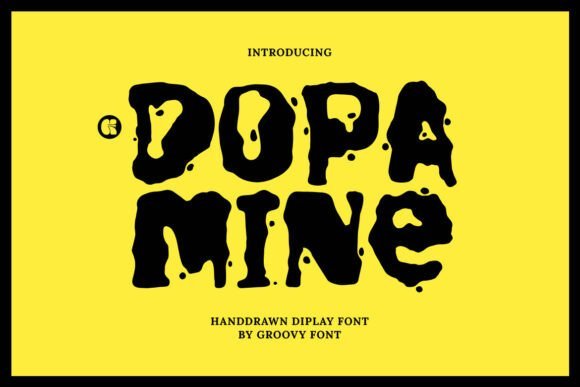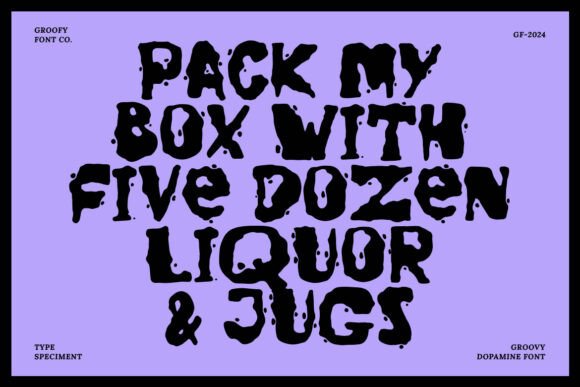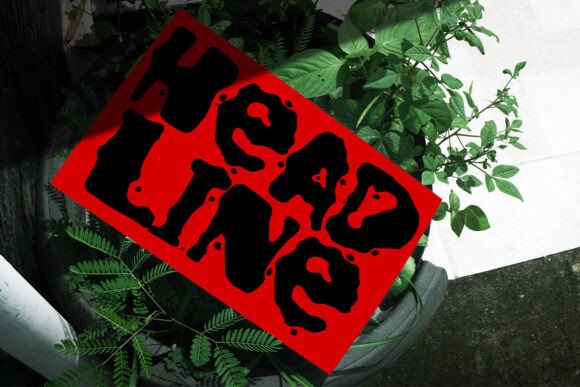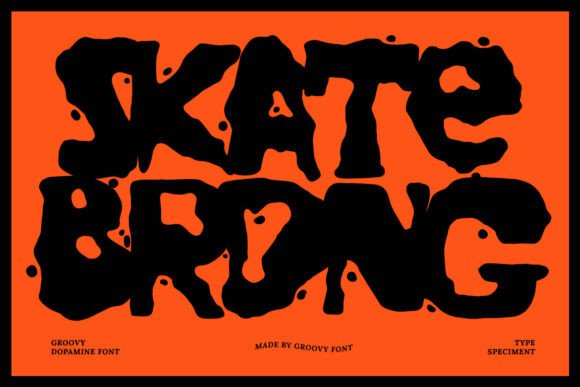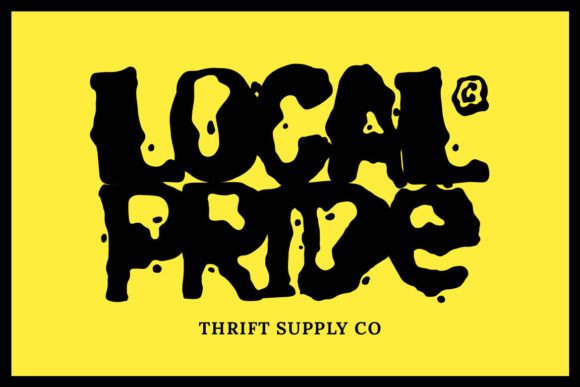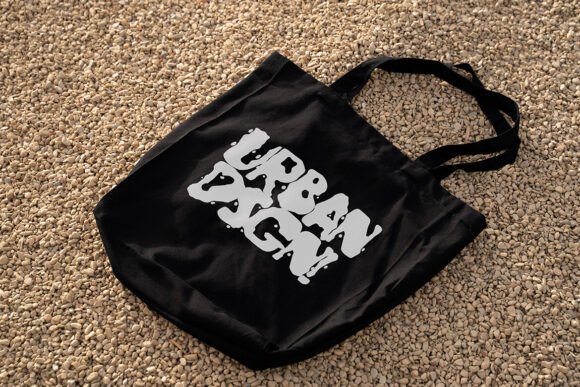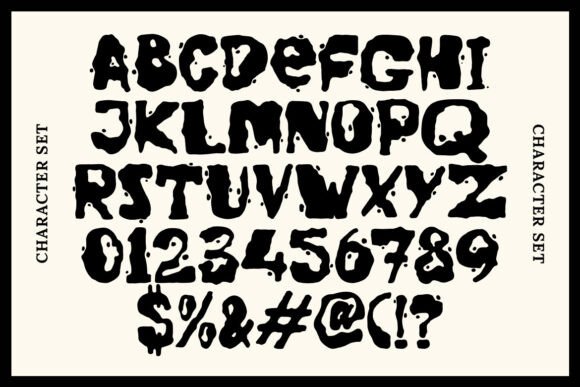
The Font That’s Got Us Hooked
Have you ever been working on a design project, and suddenly, you’re stuck? The words just aren’t flowing, and the ideas aren’t coming. But then, like a bolt of creative lightning, it hits you – the perfect font. For me, that font was Groovy Dopamine. Its bold, expressive aesthetic was the spark I needed to bring my project to life.
Groovy Dopamine Font is a Handdrawn Display Font that’s perfect for designers looking to add a touch of uniqueness to their work. With its thick brush-like design and ominous dots, this font is sure to stand out. Whether you’re creating a bold title, a captivating headline, or a mysterious logo, Groovy Dopamine Font is the perfect choice.
Groovy Dopamine Font Key Features
- Font Family: Groovy Dopamine Font offers a range of styles, including Regular, Italic, Bold, and Bold Italic.
- Unique Characteristics: Features a unique blend of geometric and organic shapes, creating a dynamic and energetic feel.
Designer Review: Groovy Dopamine Font
Overall, I was excited to dive into the Groovy Dopamine Font and see what it had to offer. Here are my honest thoughts:
- The font’s unique, retro vibe is immediately noticeable and feels like a breath of fresh air in a sea of generic sans-serifs.
- The bold weights are particularly effective at grabbing attention and would be a great choice for headlines or titles.
- The font’s versatility shines through in its ability to work well in both digital and print applications.
- The font’s irregularities and stylized flair can sometimes make it difficult to read, especially in smaller sizes or for users with vision impairments.
- The font’s lack of a clear, neutral weight (e.g. regular or light) can make it harder to use as a body text font.
Overall, I think the Groovy Dopamine Font is a great choice for projects that require a fun, eye-catching font that’s not afraid to stand out. While it may not be the best choice for every situation, it’s definitely a great addition to any designer’s toolkit.
To get the most out of the Groovy Dopamine Font, try using it in combination with other creative elements such as bold colors, playful graphics, and eye-catching textures.
The Groovy Dopamine Font is perfect for creating fun and engaging designs for:
- Social media posts and graphics.
- Marketing materials such as brochures and flyers.
- Party invitations and decorations.